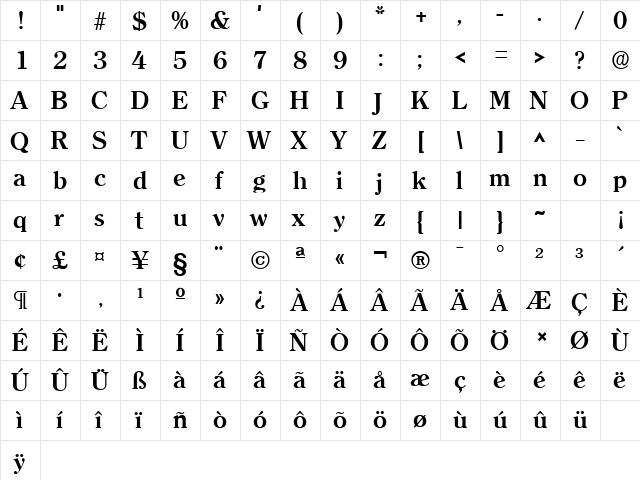
Clarity Serif SF Bold
Design Context for Clarity Serif SF Typeface
Clarity Serif SF carries the refined structure of traditional serif typography, with bracketed terminals and considered proportions that communicate credibility and craft. The heavy weight commands attention and anchors typographic hierarchies.
Pro Tip: Use Clarity Serif SF for editorial body copy and considered headline work. Pair with a neutral sans for UI elements or captions to create a classic hierarchy.